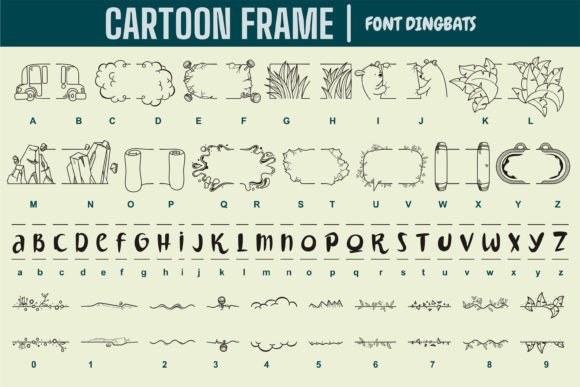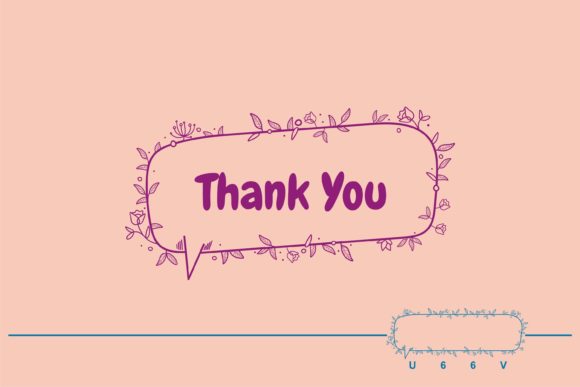
Adding a Touch of Whimsy with the Cartoon Frame Font
Have you ever been brainstorming ideas for a creative project and suddenly, a spark of inspiration hits you? It could be a colorful illustration, a quirky character, or a playful font – and for many designers, that spark was the Cartoon Frame Font. This highly detailed dingbats font is a treasure trove of creative possibilities, perfect for adding a touch of whimsy to your designs.
The Cartoon Frame Font is designed to be versatile, suitable for a wide range of applications, from crafting and digital designing to presentations and greeting card making. Its intricate details and playful style make it a valuable asset for designers looking to add an extra layer of personality to their work.
Cartoon Frame Font Key Features
- Unique Cartoon Style: Cartoon Frame Font features a unique, playful design with rounded edges and soft lines, making it perfect for creating whimsical and humorous content.
Cartoon Frame Font Review
I recently had the chance to work with Cartoon Frame Font, and I must say it’s a unique addition to any design project. ✨ One thing I really appreciate is the variety of frames available – from simple to intricate, you can find the perfect fit for your needs. The customization options are also quite extensive, allowing you to adjust the size, color, and even add text inside the frame.
The font is highly versatile and can be used for a wide range of applications, from children’s books to social media graphics. ✨ I also love how the font can add a playful touch to any design, making it perfect for brands that want to convey a sense of fun and approachability.
- ⚠️ The font may not be suitable for formal or professional designs, as it can come across as too casual.
- ⚠️ Some users may find the font too busy or overwhelming, especially when used in large quantities.
- ⚠️ The font may not be as readable in smaller sizes, which can affect its overall effectiveness.
Overall, I think Cartoon Frame Font is a great addition to any designer’s toolkit. While it may have some limitations, its unique style and customization options make it a valuable resource for any project that requires a playful touch.
Cartoon Frame Font is ideal for creating playful and whimsical designs, such as:
Children’s book illustrations
Cartoon-style advertisements
Party invitations and decorations
Wedding